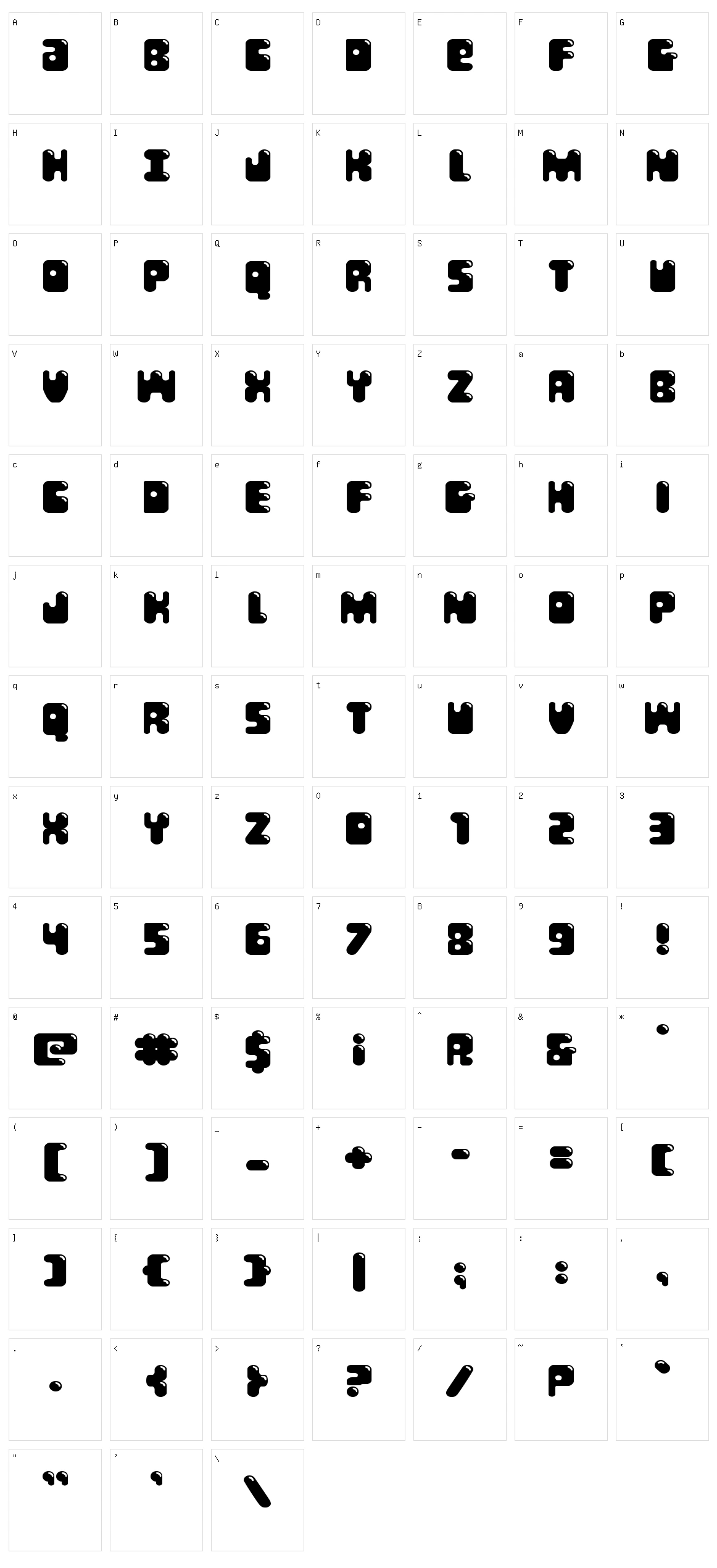
This font comes with the following 13 versions: Regular, Italic, Condensed, Condensed Italic, Expanded, Expanded Italic, Outline, Outline Italic, 3D, 3D Italic, Academy, Academy Italic and Leftalic.